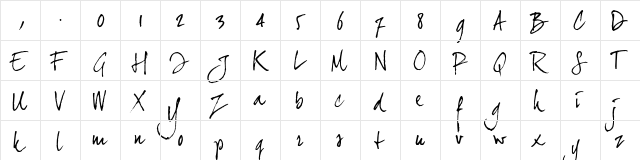
joeHand 2 Regular
| Foundry | J O E B O B graphics |
| Designer | J O E B O B graphics - JJW van der ham |
Design Context for joeHand 2 Typeface
joeHand 2 flows with the natural rhythm of handwritten lettering, making it ideal for designs that call for warmth and personal expression.
Font Pairing: Combine joeHand 2 with a simple geometric sans for maximum contrast — the tension between flowing curves and clean structure is a classic typographic pairing.
Pro Tip: Use joeHand 2 for short runs of text — names, titles, or taglines. Extended body copy in script faces tires the eye quickly.